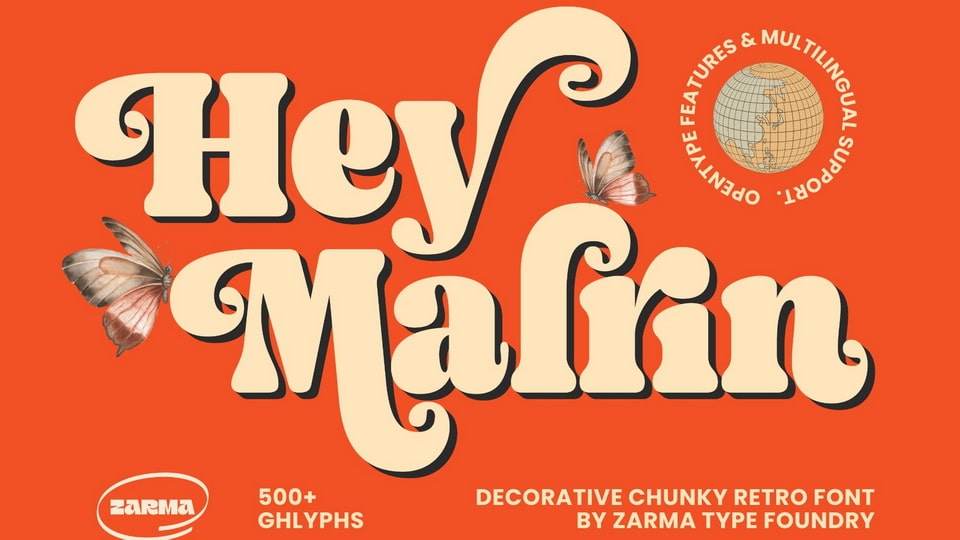
Download Malrin font, a chunky retro typeface inspired by the great fatface type. The concept of Marlin font came from a groovy, funky and little bit of psychedelic vibe.
Designer: Zarma Type Foundry